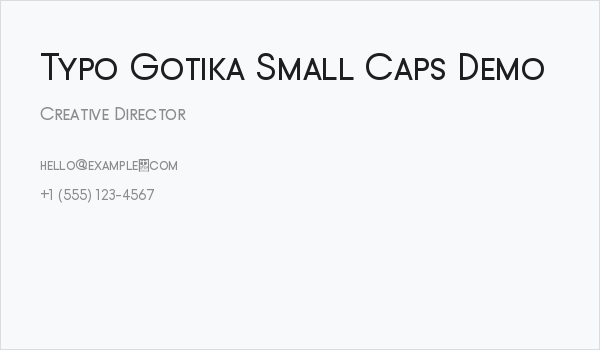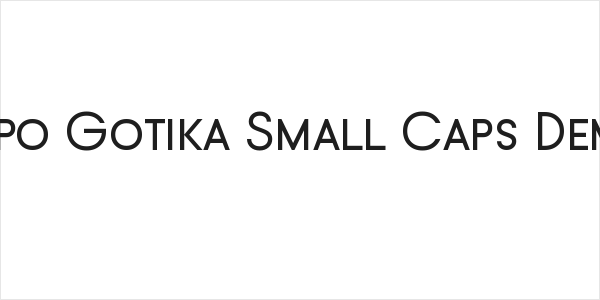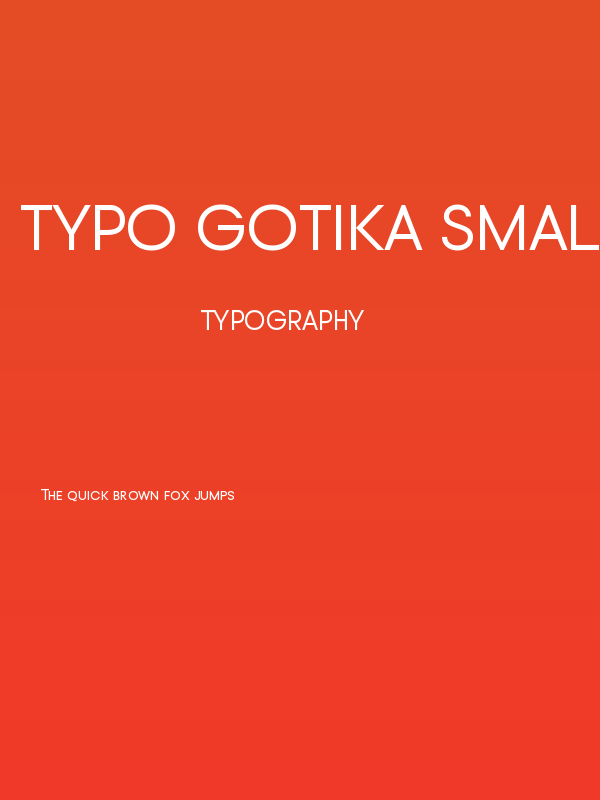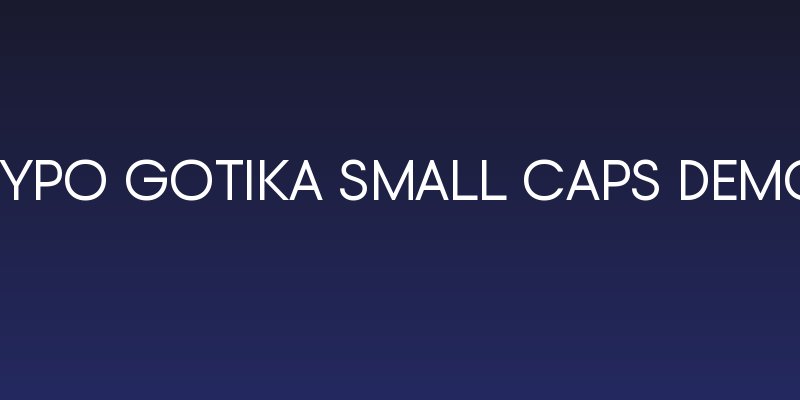
Typo Gotika Small Caps Demo Font
Typo Gotika Small Caps Demo Description
This font features a clean and modern sans-serif style with uniform stroke widths, giving it a sleek and contemporary appearance. The characters are well-proportioned, with a consistent height and width that ensures readability across various sizes. The uppercase letters are bold and assertive, while the lowercase letters maintain a similar weight, creating a harmonious balance. The numerals are clear and distinct, making them suitable for both display and text purposes. The special characters are designed with the same attention to detail, ensuring they integrate seamlessly with the rest of the font. Overall, this font exudes a professional and polished look, ideal for modern design projects.